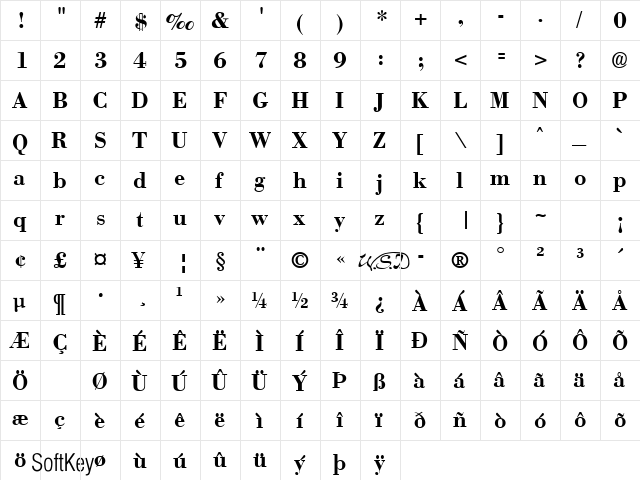
Boston Bold
Design Context for Boston Typeface
Boston is a composed and adaptable typeface that performs quietly and consistently across a wide range of design contexts. Its bold stroke weight gives it real presence on the page.
Pro Tip: Pair Boston with a font of contrasting weight or personality to build a more expressive typographic hierarchy.